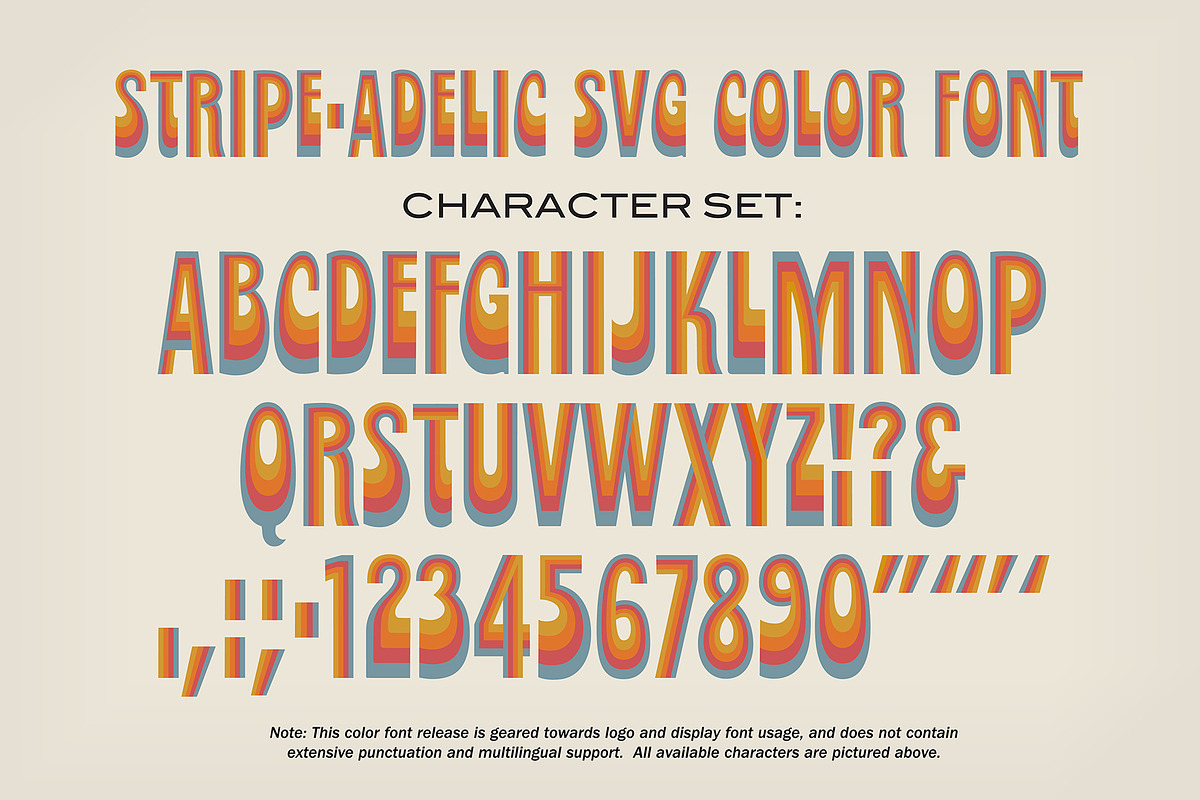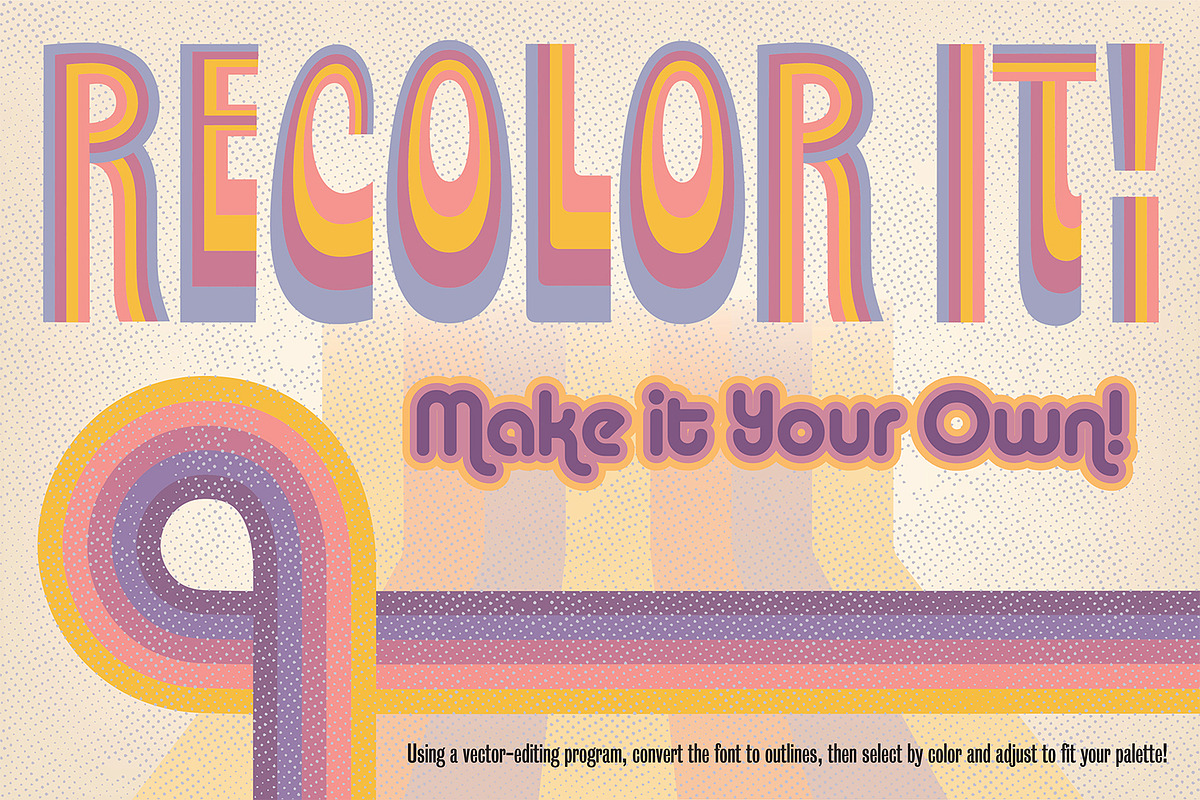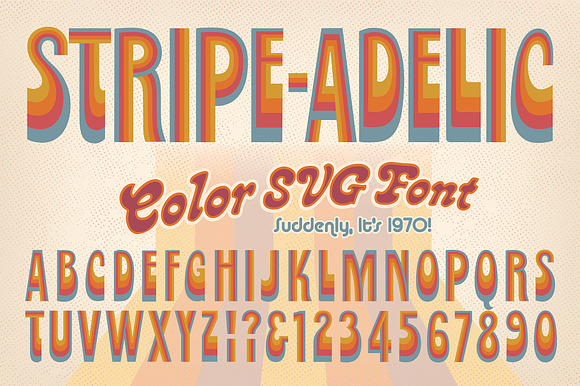
Stripe-adelic SVG Color Font
STRIPE-ADELIC ALPHABET
Suddenly, it's 1970! This vintage-styled SVG color font fits squarely between the end of the sixties and the beginning of the seventies. Stylistically, it was an era of wondrous and colorful creativity, with the popularity of animated psychedelic art films, Pop Art and Peter Max. It's all gigantic bellbottoms, handlebar moustaches, burnt oranges, and off-color rainbows, and when seen through the hazy lens of nostalgia, this type of work is absolute peak feelgood.